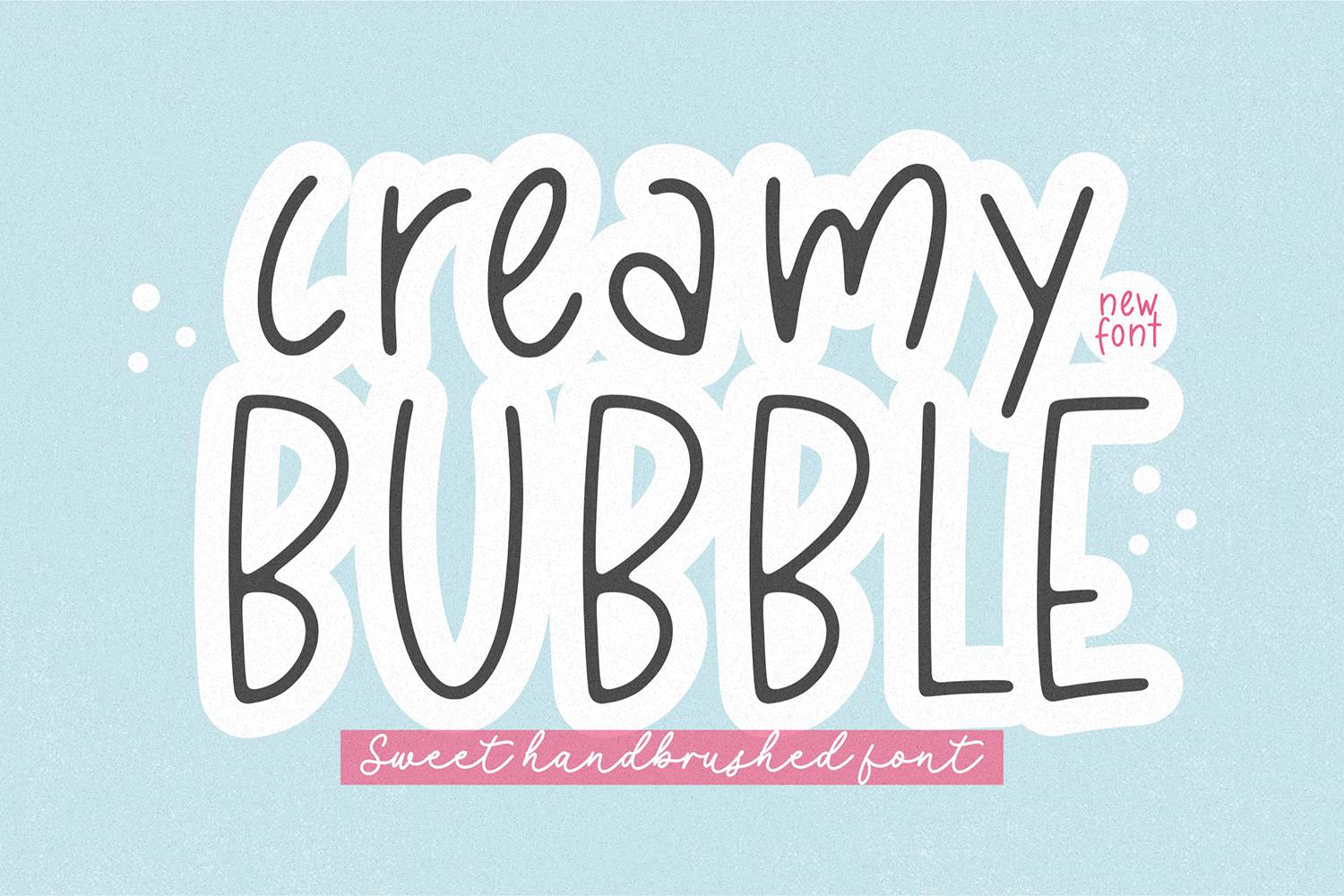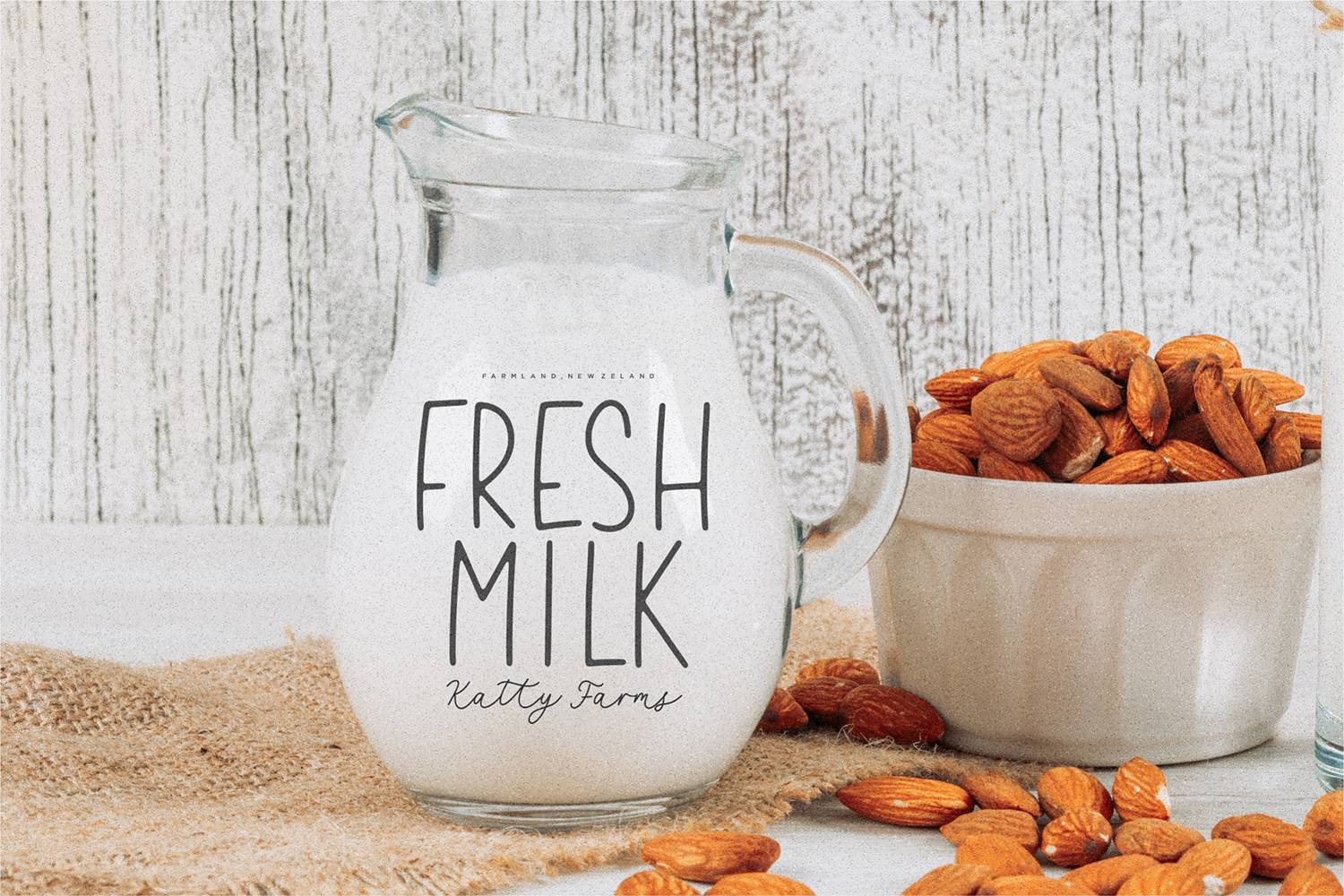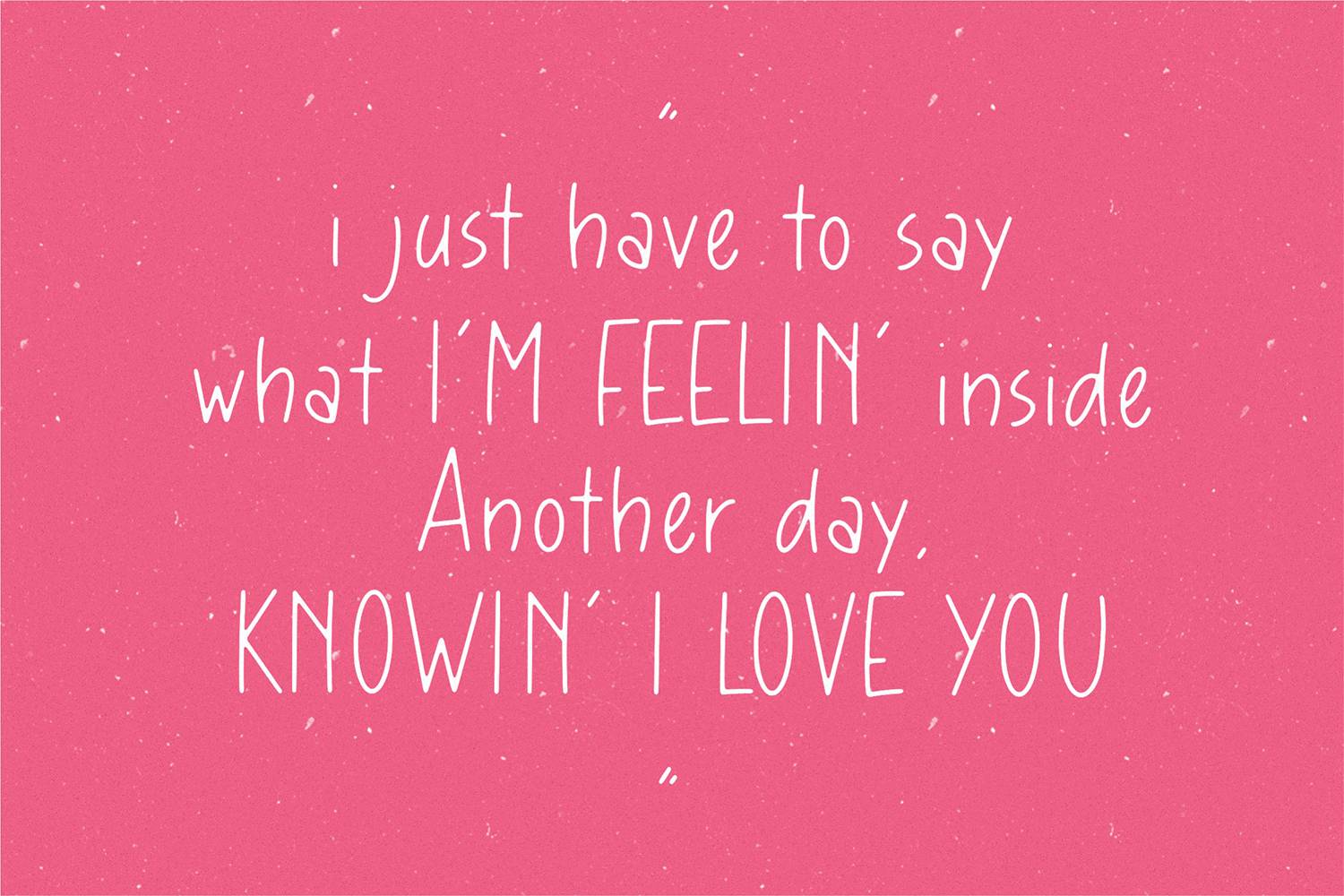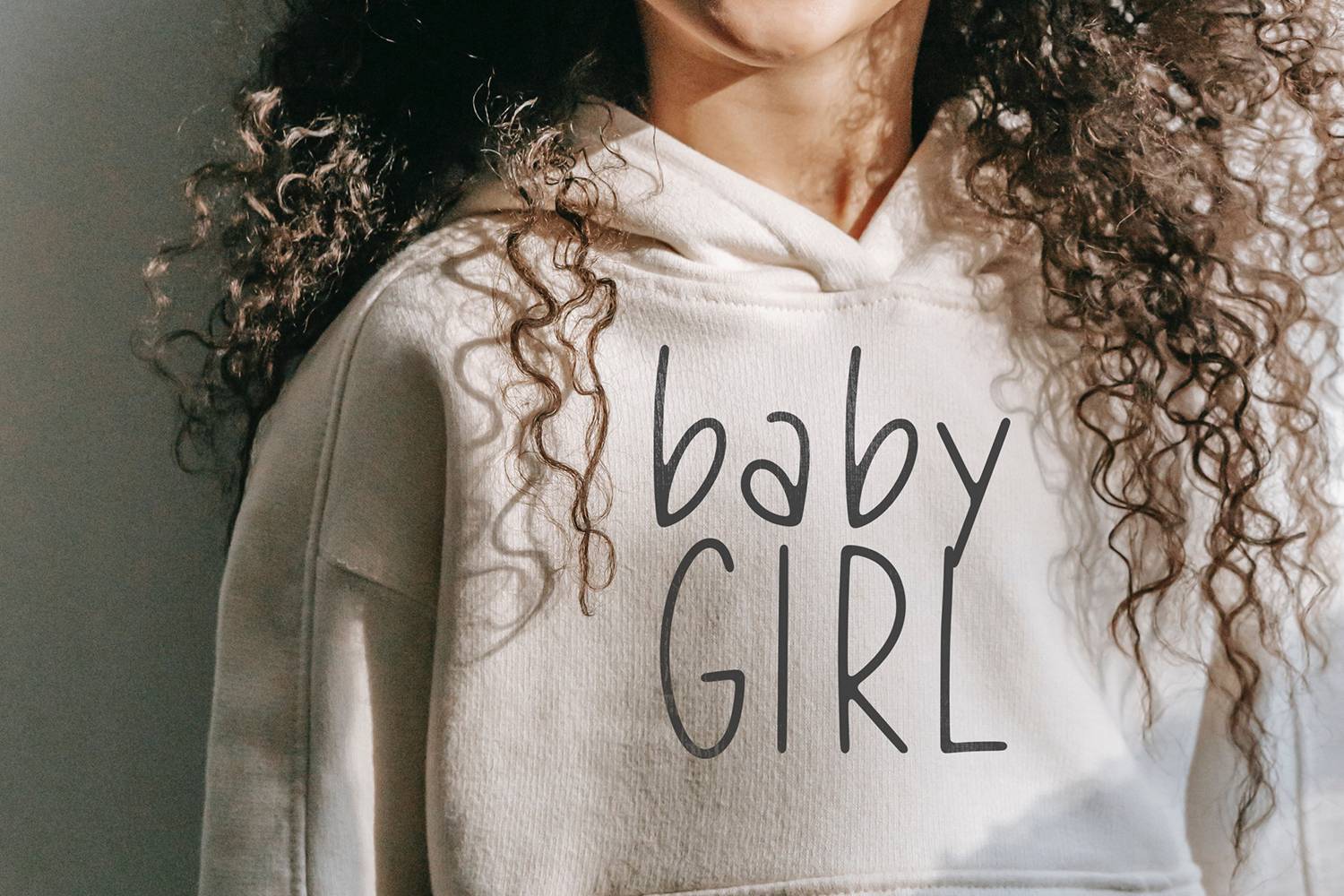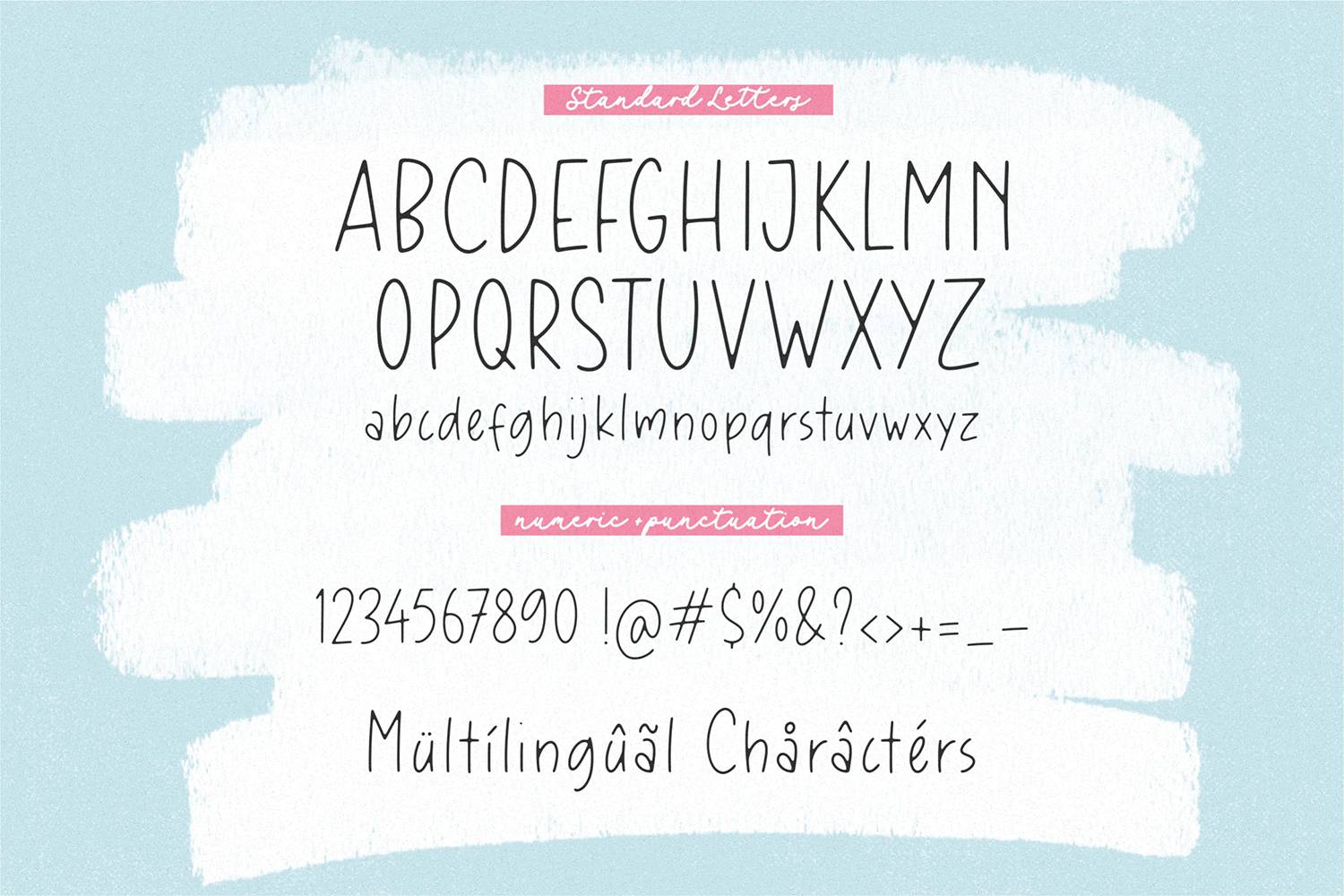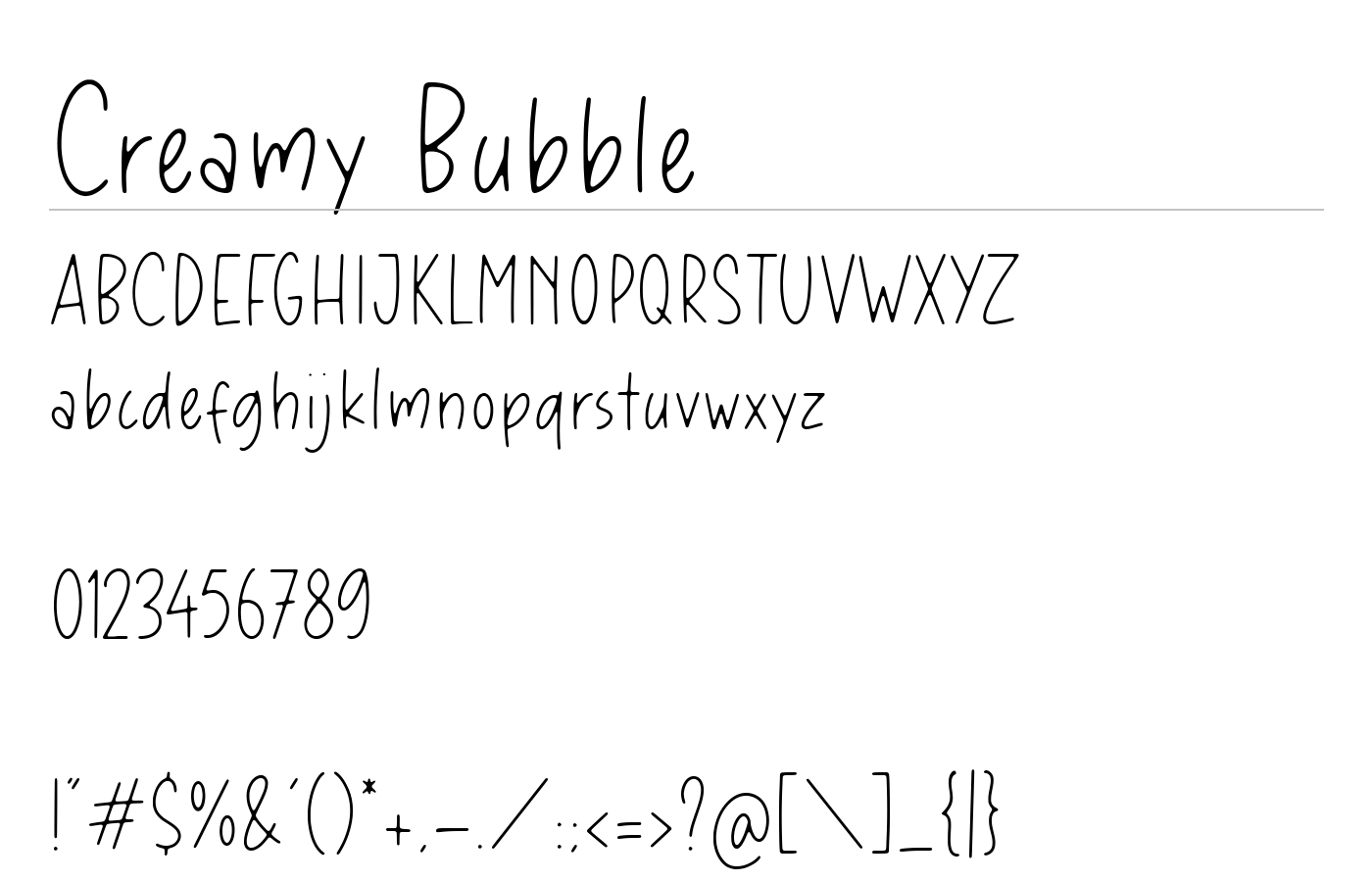
Creamy Bubble is a playful, hand-drawn sans serif font with a light weight and tall, narrow letterforms. It features a casual, slightly quirky style with low contrast strokes and a natural, organic feel, making it perfect for friendly, informal designs. This font works well in children’s books, creative branding, invitations, and any project seeking a warm, approachable touch.
Creamy Bubble Font
About Creamy Bubble Font